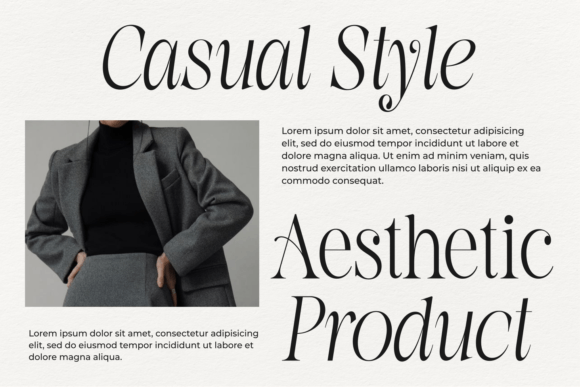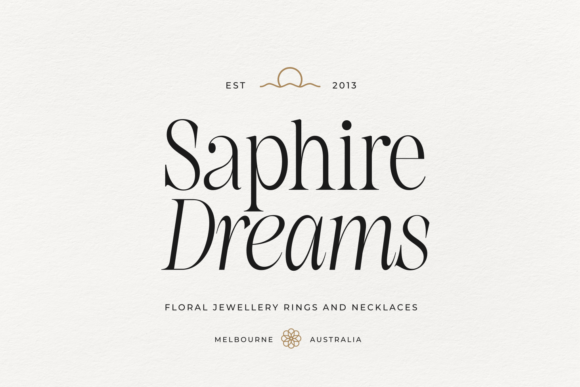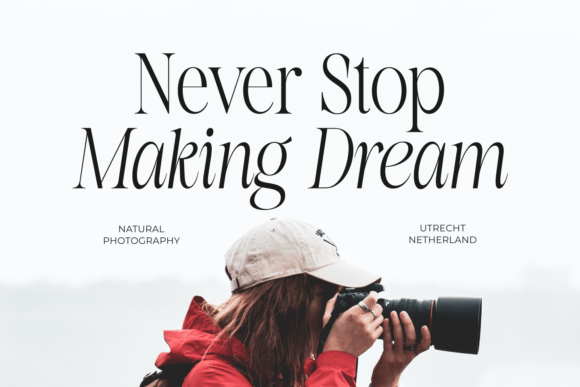
La Fleur Grande Font
La Fleur Grande is a an elegant and smooth combine typeface regular and italic serif font.
It’s a very versatile font that works great in large. Stylistic Alternate and Ligature makes your project will be awesome.
La Fleur Grande Perfect for editorial projects, Logo design, web font, branding, product packaging, magazine , or simply as a stylish text overlay to any background image.